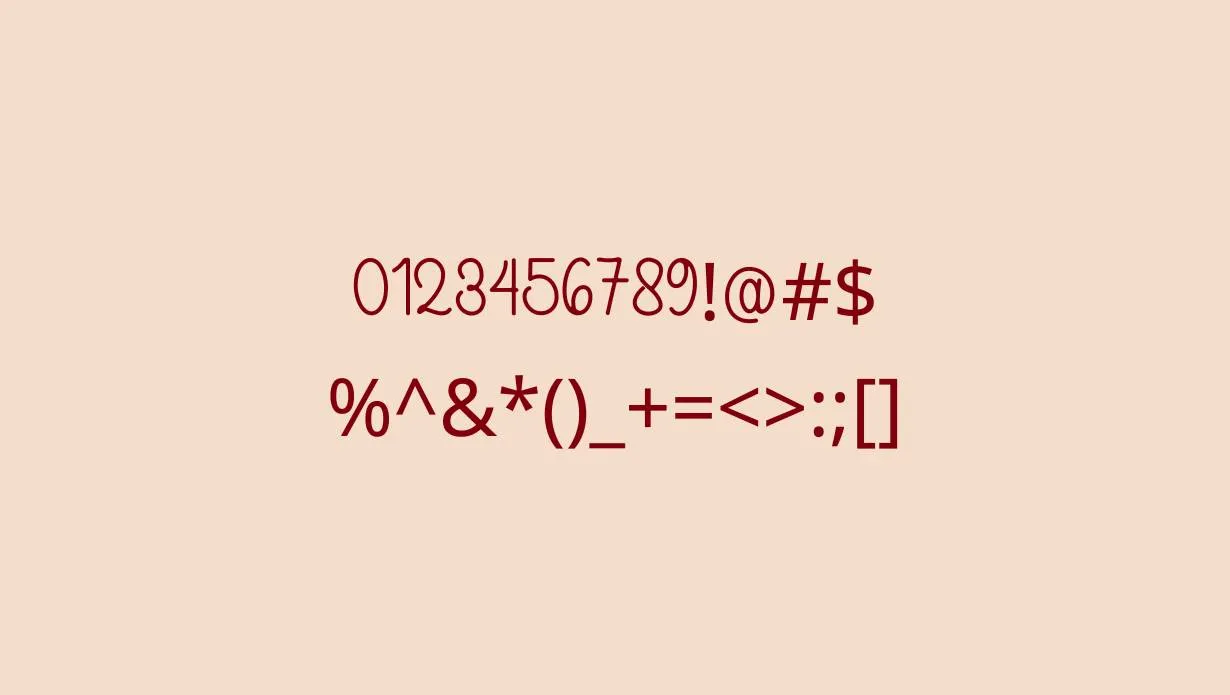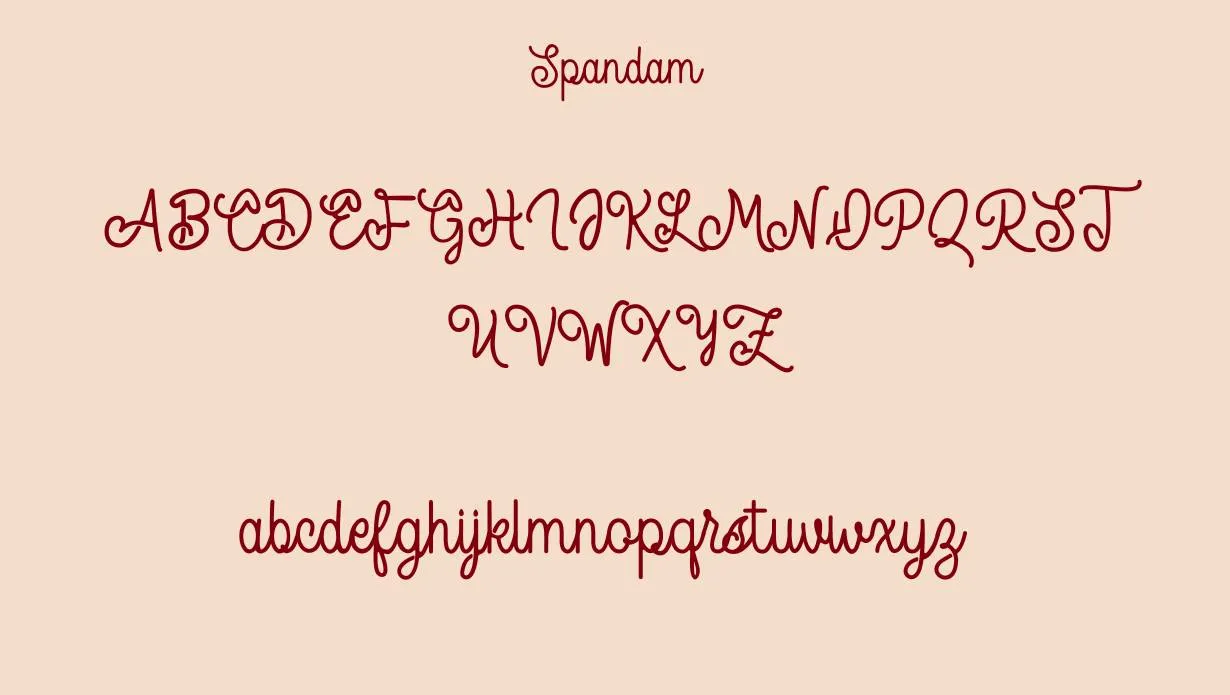
Spandam Font is a friendly, vintage old age-style script font. It is a casual and attractive font style designed by OCS Studio. This is an elegant, legible, and attractive font that will make your design better for professional as well as highly creative ideas.
This font is inspired by old typography as well as has a touch of modern typography also. It comes with an open-type feature with several alternatives and swash endings. The typeface contains uppercase letters, lowercase letters, numbers from 0 to 9, punctuation marks, special characters, and multilingual support.
Spandam Font Family Appearance
| Name | Spandam Font |
| Designer | OCS Studio |
| Style | Script |
Family of Spandam Font
- Spandam Regular
- Spandam Rough
Is Spandam font easy to read?
Yes, this texture is a readable font. That’s why you can easily use this font in any type of design project.
What type of texture is Spandam font?
This wonderful typeface is a friendly, vintage old age-style script font. It is a casual and attractive font style designed by OCS Studio.